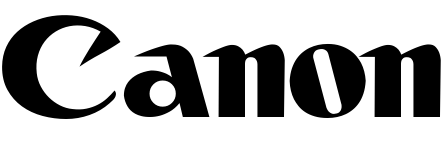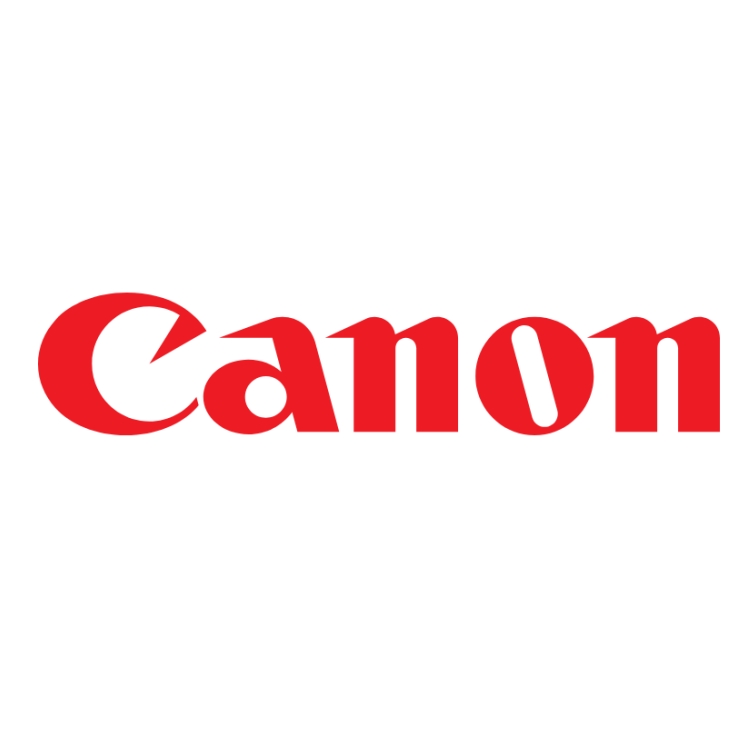
Canon Font
ElectronicsCanon is a multinational Japanese company that specializes in imaging and optical products, including cameras, printers, and photocopiers. It is one of the largest brands in the photography and printing industry. Canon was originally named Kwanon, inspired by the Buddhist Bodhisattva Guan Yin, reflected in its first logo with "Kwanon with 1000 arms and flames". Today, its iconic red logo is known worldwide.